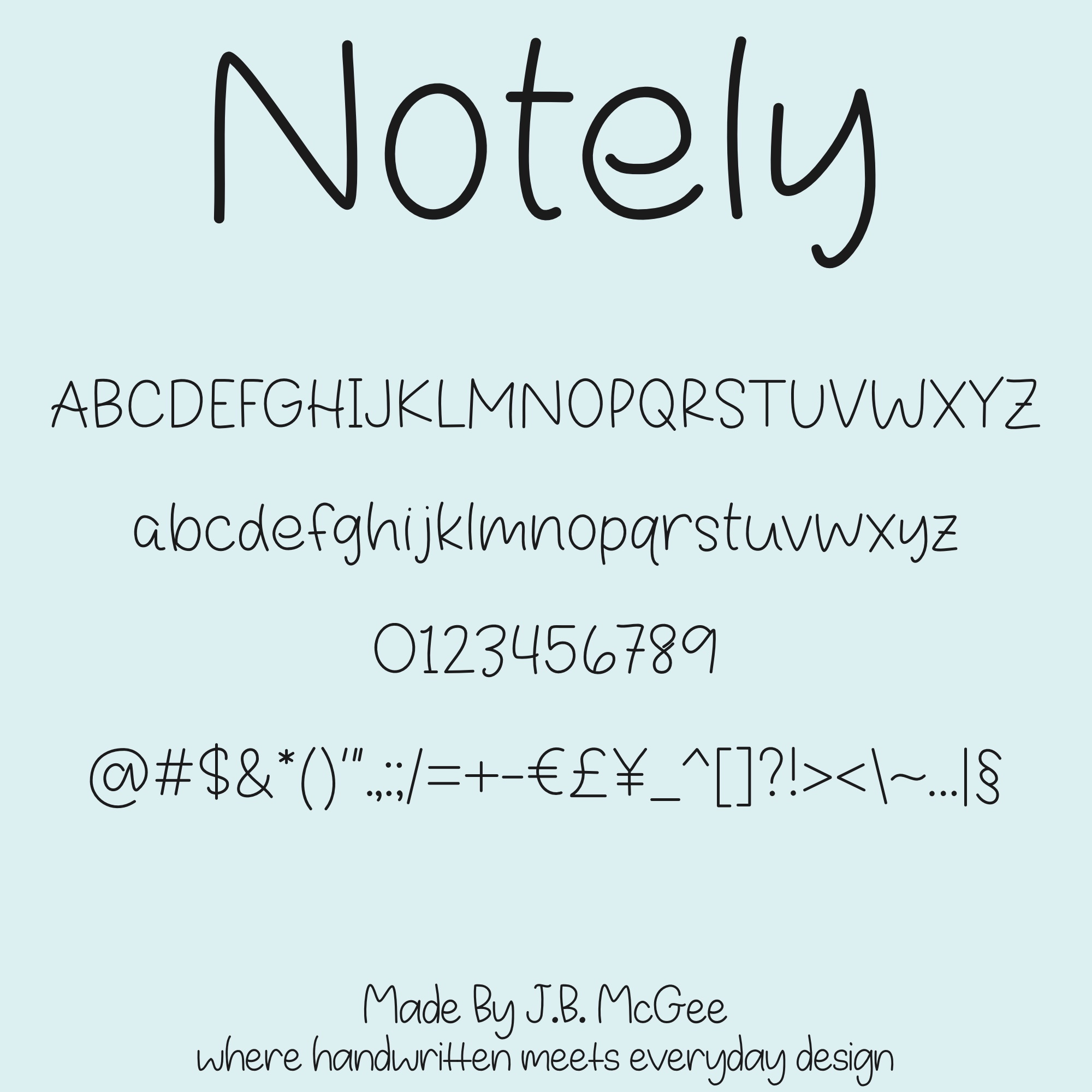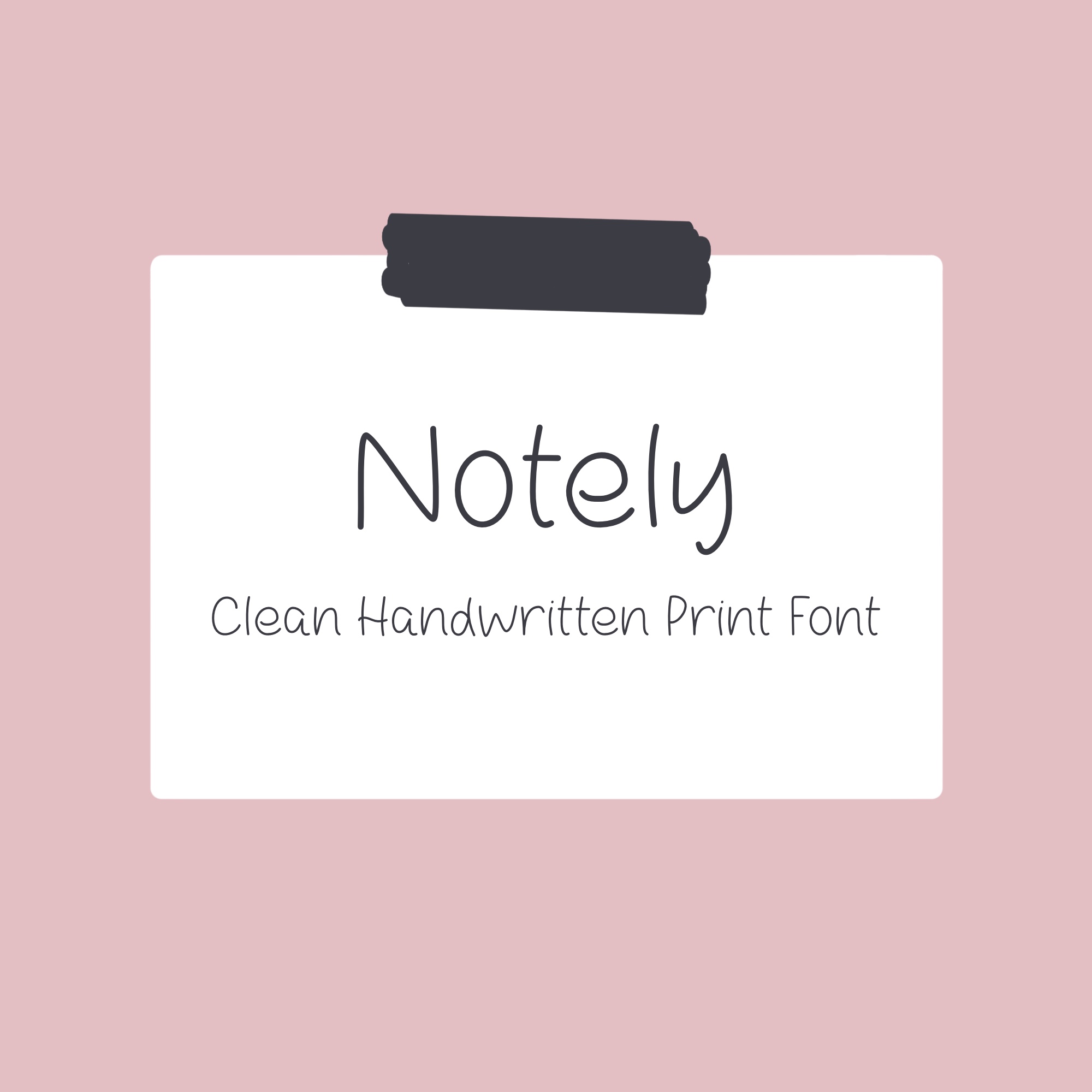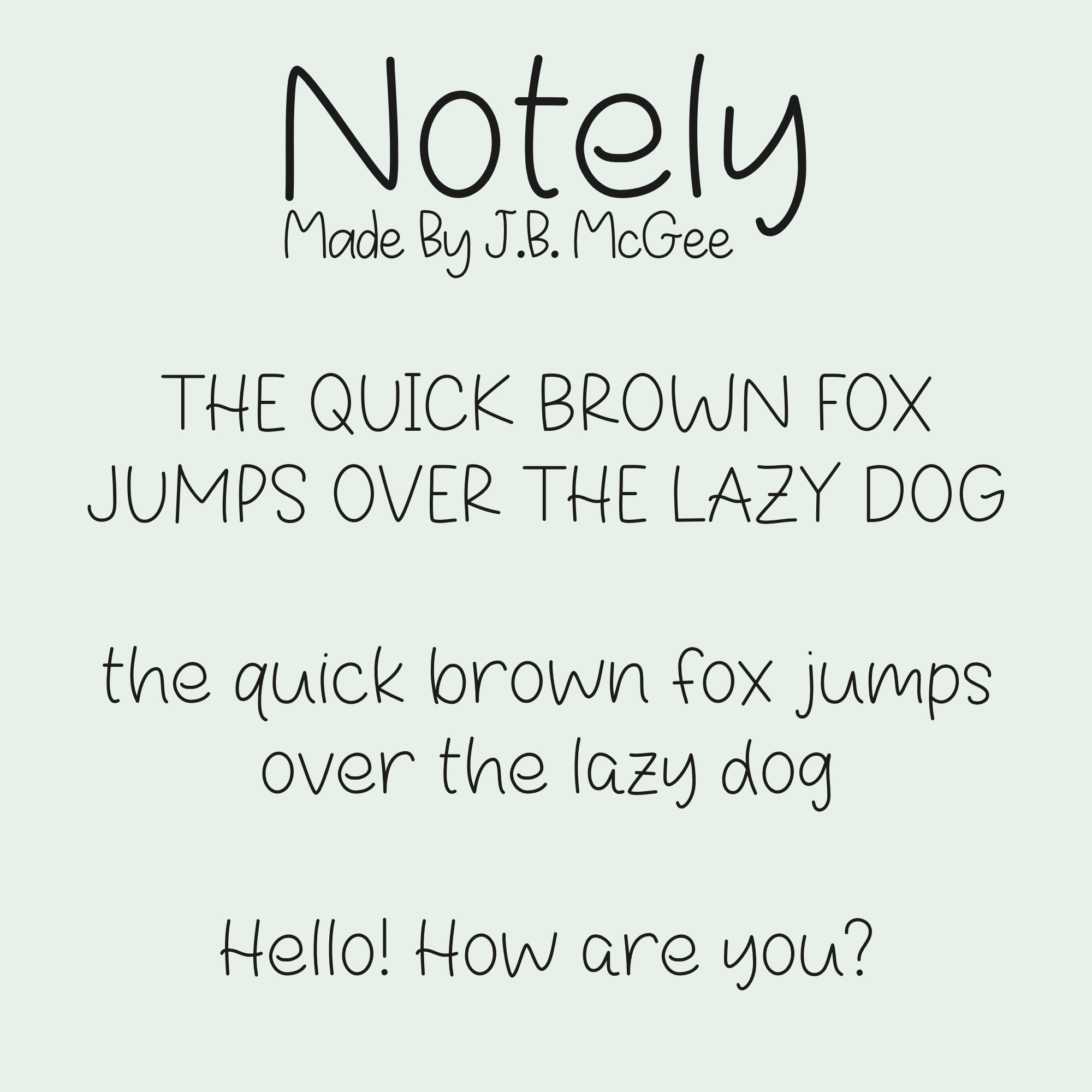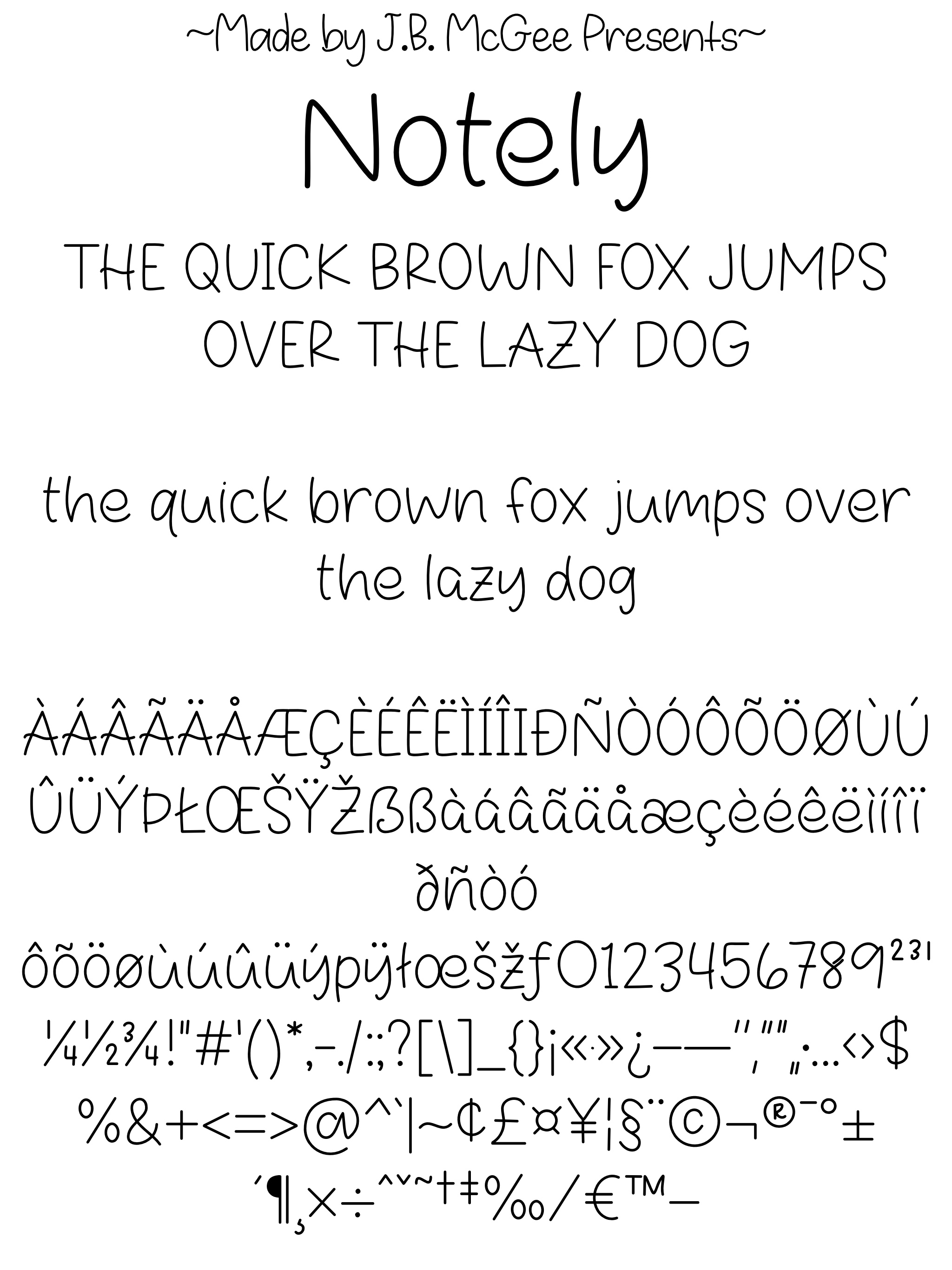
Notely Handwritten Font
A Clean Handwritten Print Font
Notely is a clean handwritten print font designed for everyday use.
With its light, monoline style and soft, rounded edges, it brings a natural handwritten look while staying neat and easy to read. This font is ideal for planners, classroom materials, notes, and simple design projects where clarity matters most.Notely includes a full set of uppercase and lowercase letters, numbers, and punctuation, giving you everything you need for consistent, polished results.Whether you’re organizing your day, creating worksheets, or designing something simple and functional, Notely keeps your text clear, friendly, and easy to use.